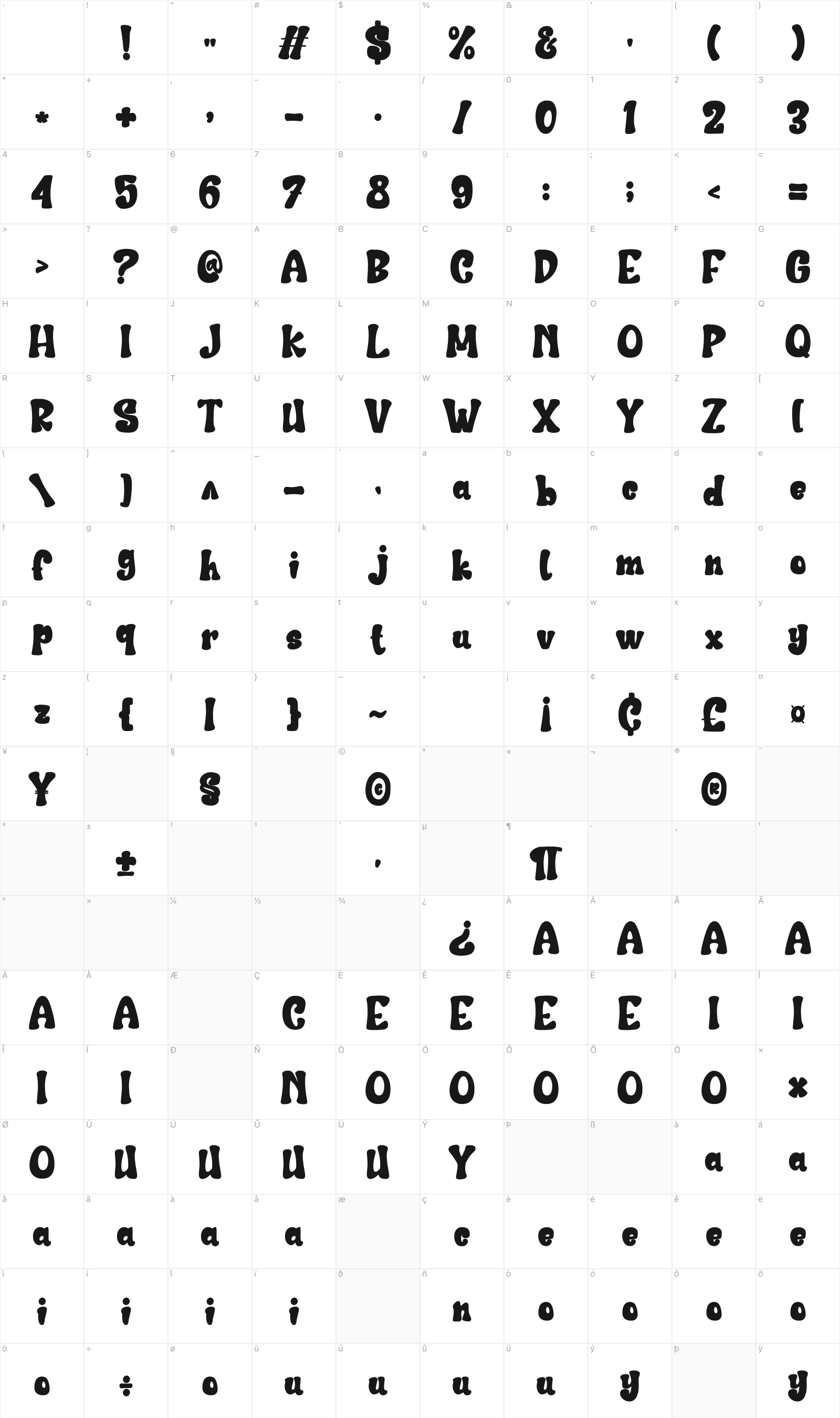
Sweet Spooky
Sweet Spooky is a heavy groovy display font with rounded, inflated strokes and bouncy retro energy pulled straight from 1970s psychedelic lettering. The thick stems swell at joints and taper into curved terminals that give every character a slightly bubbly, cartoonish weight. It sits naturally on Halloween packaging, event posters, and anything that needs fun with a hint of the eerie.